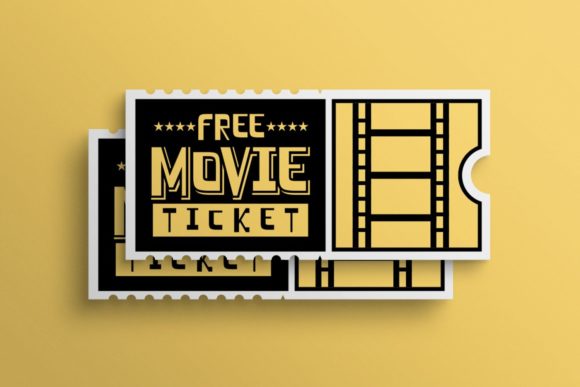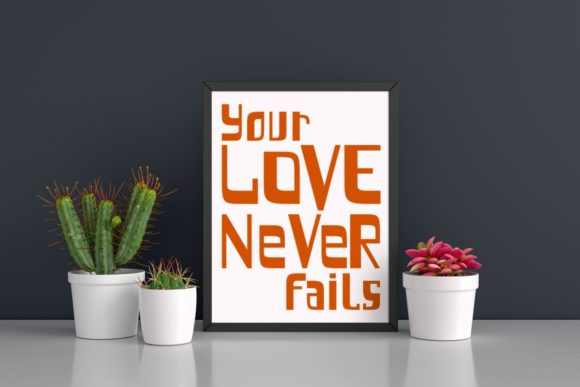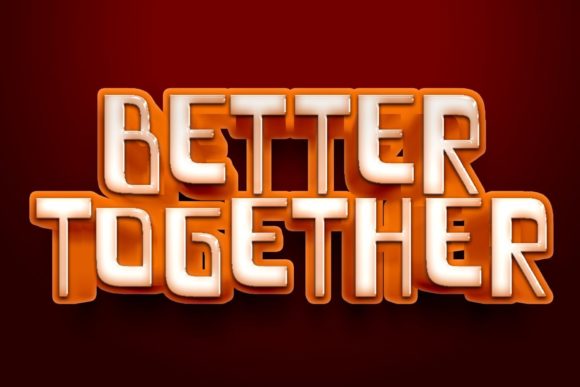
Introducing Born to Be Happy Font: The Ultimate Robotic Display Font
Are you tired of using the same old fonts in your designs? Look no further! Born to Be Happy Font is an incredibly cool and robotic display font that can elevate your creations to the next level. Whether you’re working on school material, posters, logos, or any type of project, this font is sure to make a statement.
What Makes Born to Be Happy Font So Special?
Born to Be Happy Font is a unique and modern display font that features a robotic and futuristic design. Its sleek lines and metallic look make it perfect for designs that require a bold and eye-catching font. The font is highly versatile and can be used in a variety of contexts, from digital designs to print materials.
Key Features of Born to Be Happy Font
- Robotic Design: Born to Be Happy Font features a robotic and futuristic design that is sure to grab attention.
- Highly Versatile: The font can be used in a variety of designs, including school material, posters, logos, and more.
- Easy to Read: Despite its bold and futuristic design, Born to Be Happy Font is easy to read and understand.
- Customizable: The font can be customized to fit your specific design needs, making it perfect for designers and crafters.
School Material
Born to Be Happy Font is perfect for school material, such as posters, flyers, and presentations. Its bold and eye-catching design makes it sure to grab the attention of students and teachers alike.
Posters and Flyers
Create eye-catching posters and flyers with Born to Be Happy Font. Its robotic design makes it perfect for promoting events, products, or services.
Logos and Branding
Born to Be Happy Font can also be used to create unique and memorable logos and branding materials. Its futuristic design makes it perfect for tech companies, robotics businesses, or any brand that wants to stand out.
Tips and Tricks for Using Born to Be Happy Font
- Use it sparingly: Born to Be Happy Font is a bold and eye-catching font, so use it sparingly to avoid overwhelming your design.
- Pair it with other fonts: Born to Be Happy Font pairs well with other fonts, such as sans-serif fonts or script fonts.
- Experiment with colors: Born to Be Happy Font looks great in a variety of colors, so experiment with different colors to find the one that works best for your design.
Born to Be Happy Font is an incredibly cool and robotic display font that can elevate your designs to the next level. Its sleek lines and metallic look make it perfect for designs that require a bold and eye-catching font. With its highly versatile design and easy-to-read format, Born to Be Happy Font is perfect for designers and crafters of all levels. So why wait? Download Born to Be Happy Font today and start creating amazing designs!